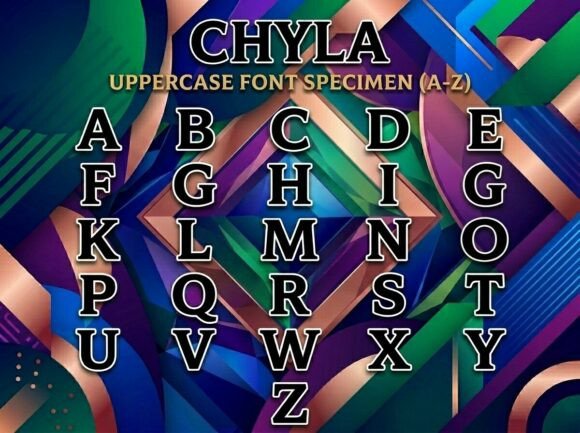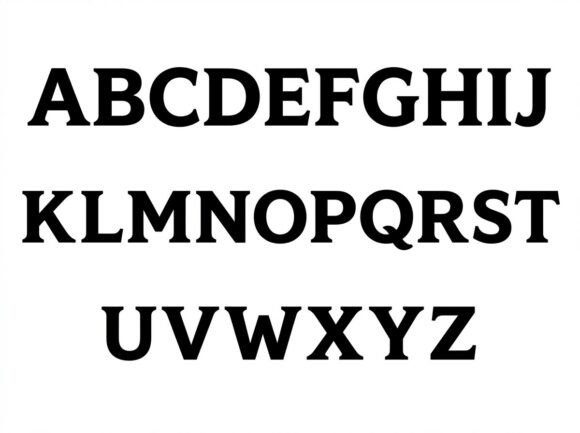
Introduction to Chyla Font
Command attention with Chyla, a bold and classic serif font designed for timeless impact.
This typeface features a sturdy, traditional structure with high-contrast strokes and substantial, blocky serifs that exude confidence and authority Its clean outlines and refined proportions make it an exceptional choice for editorial headlines, high-end branding, cinematic posters, and corporate identities.